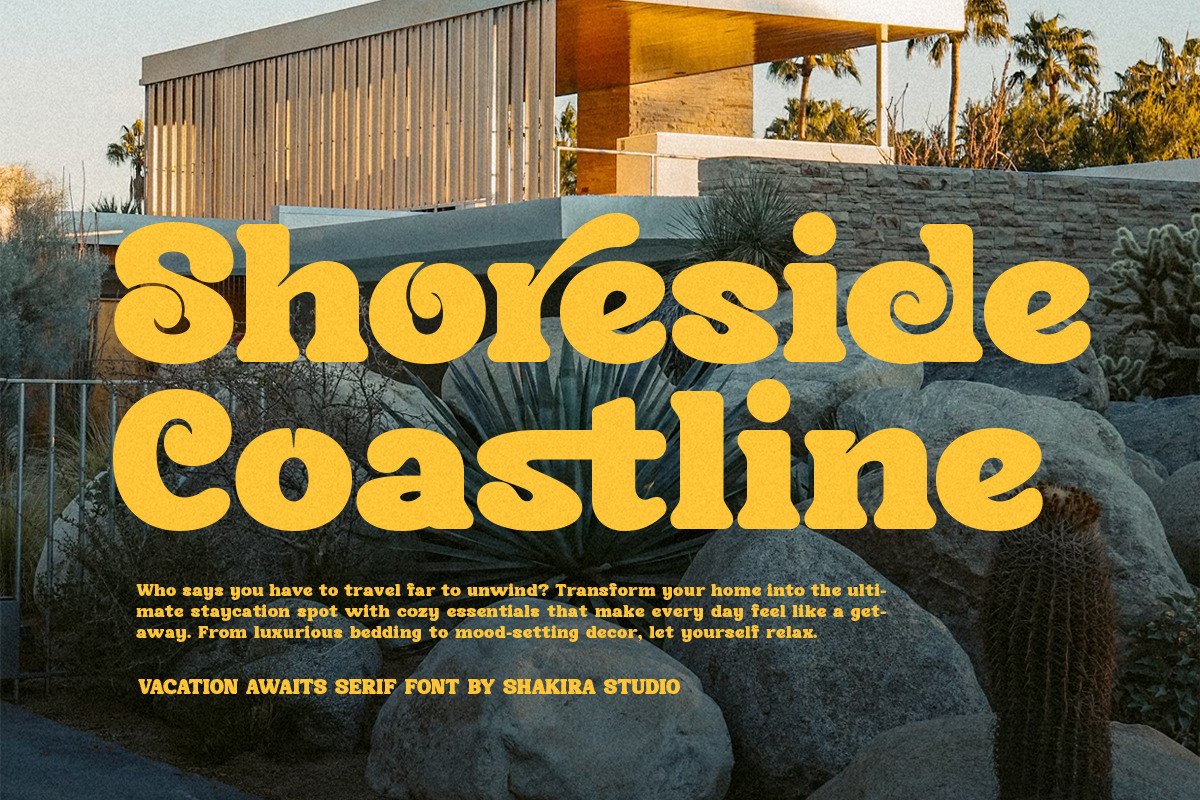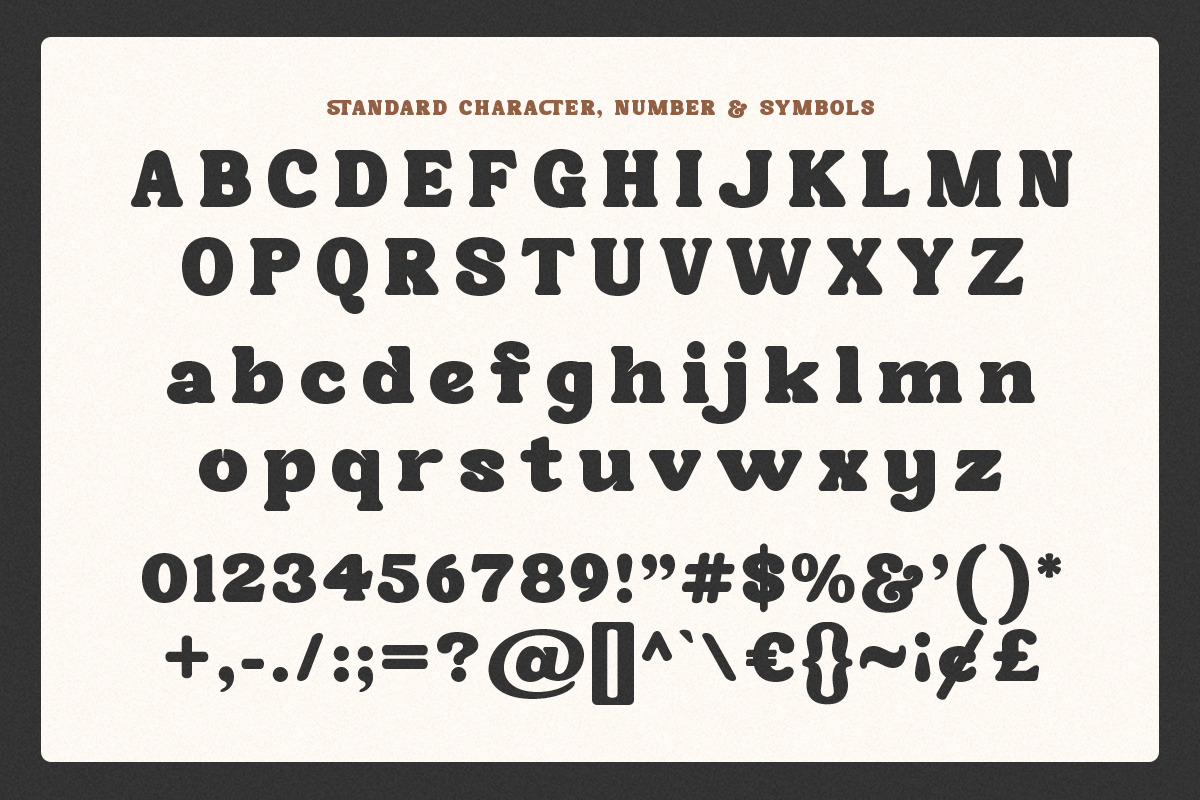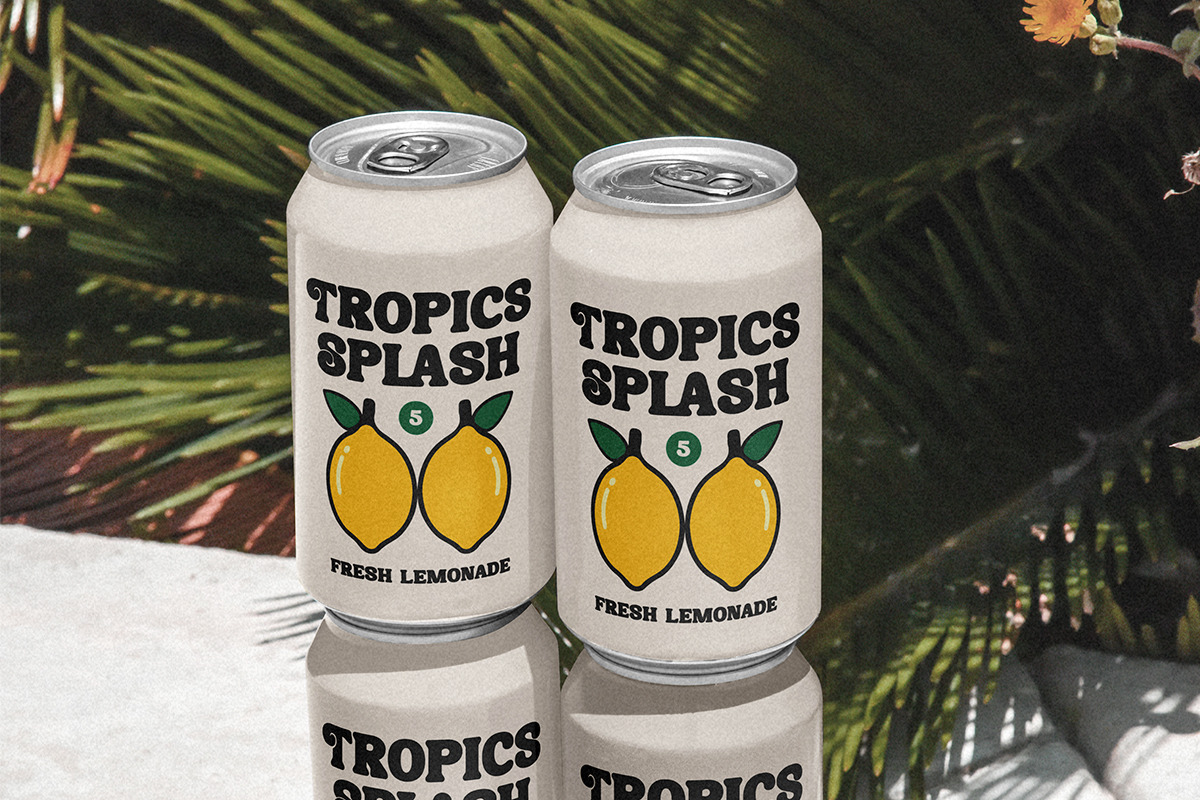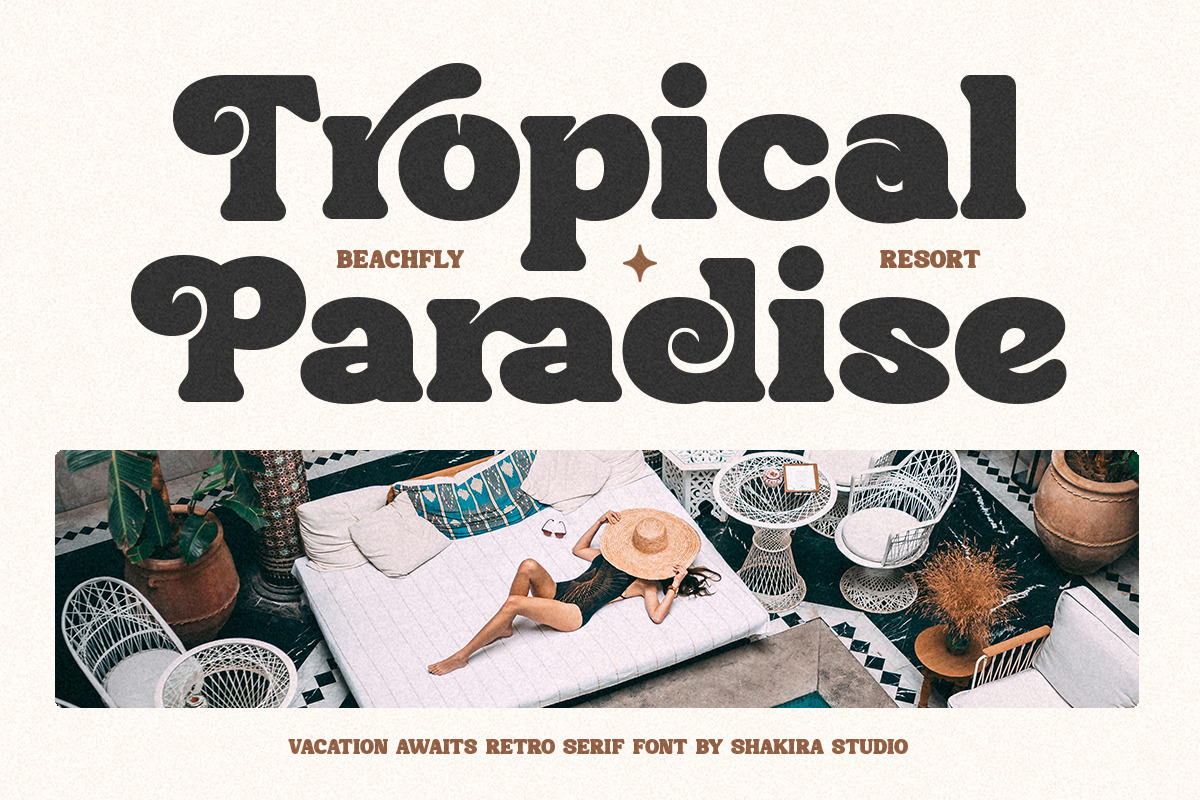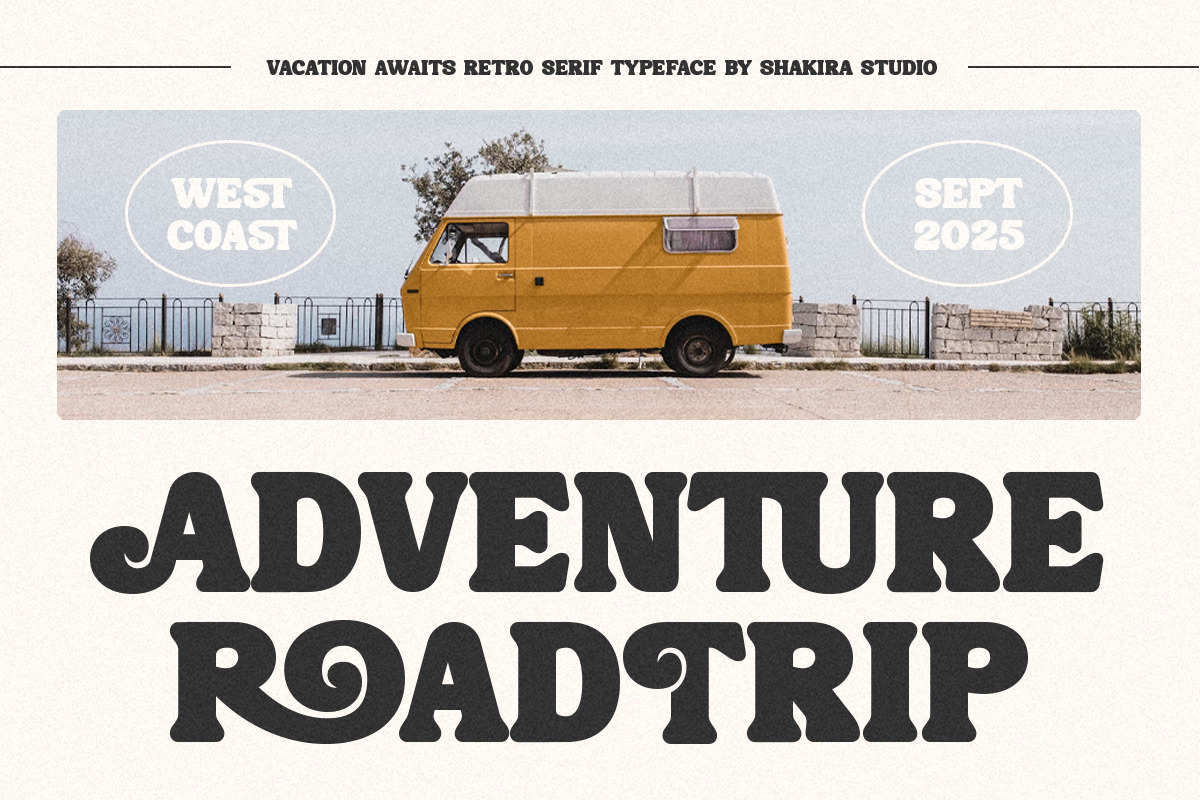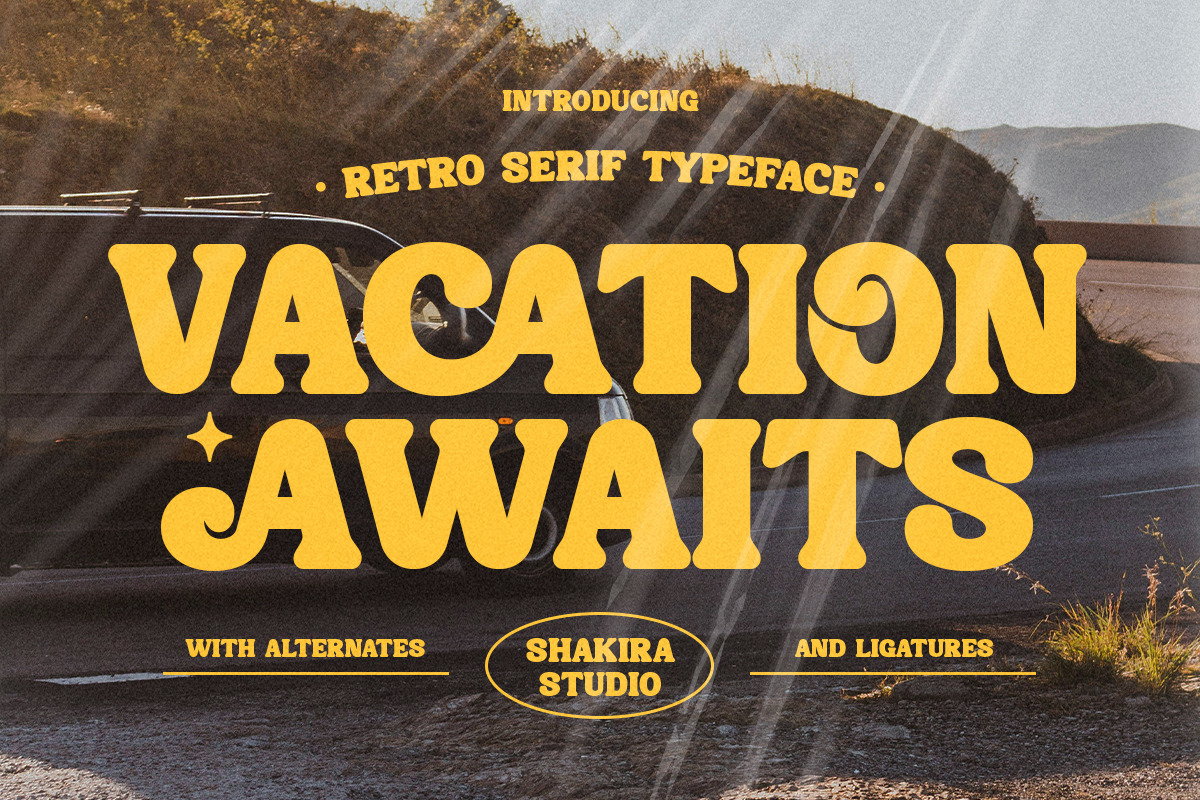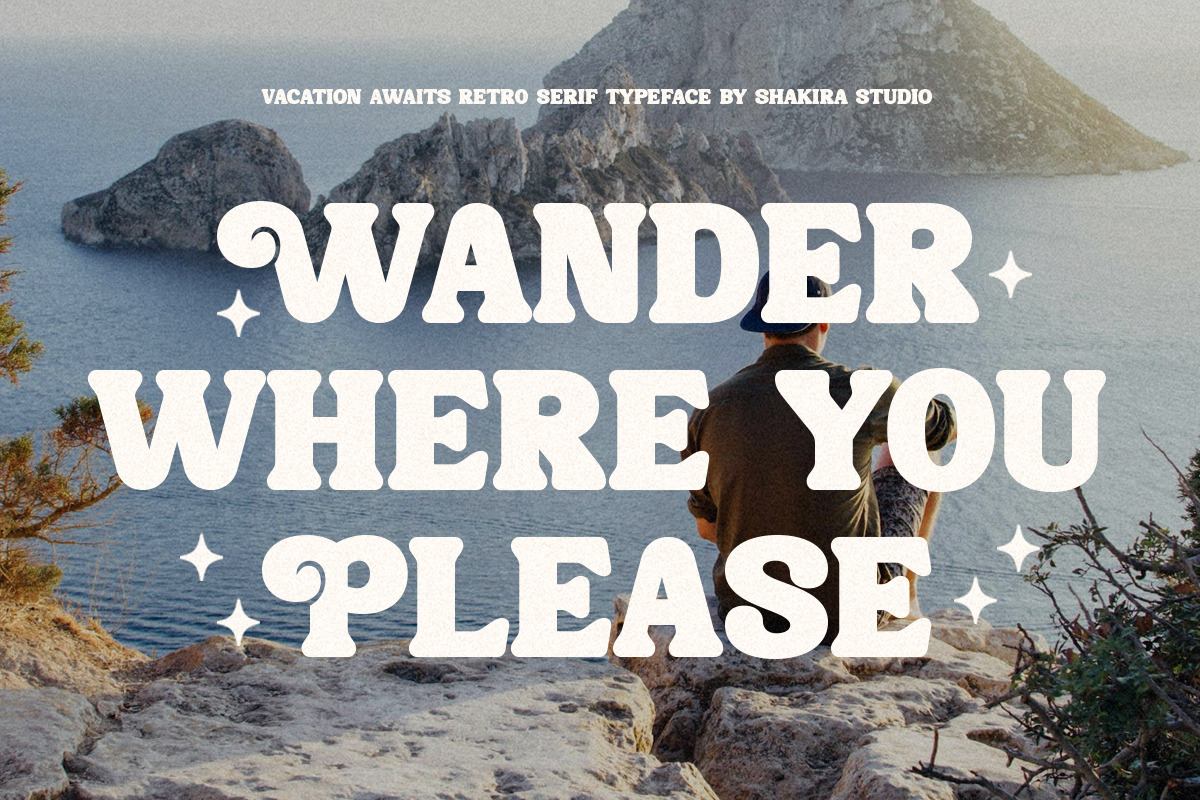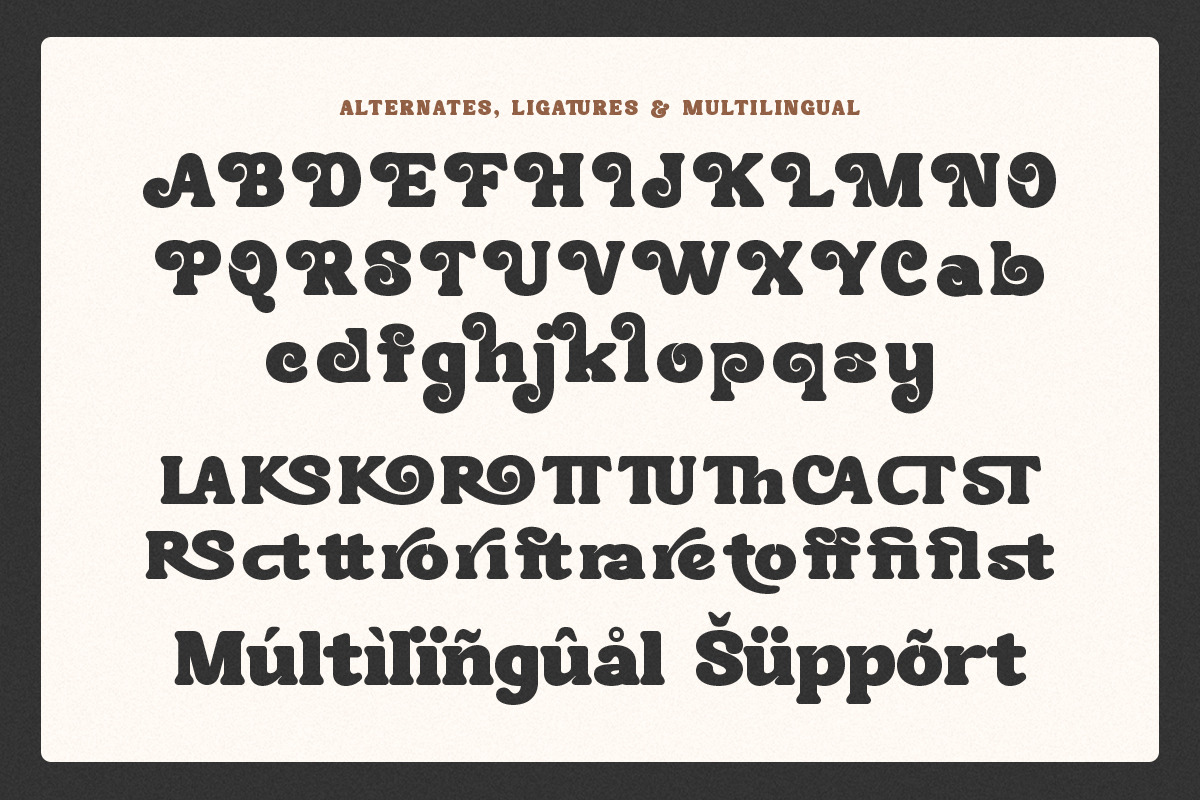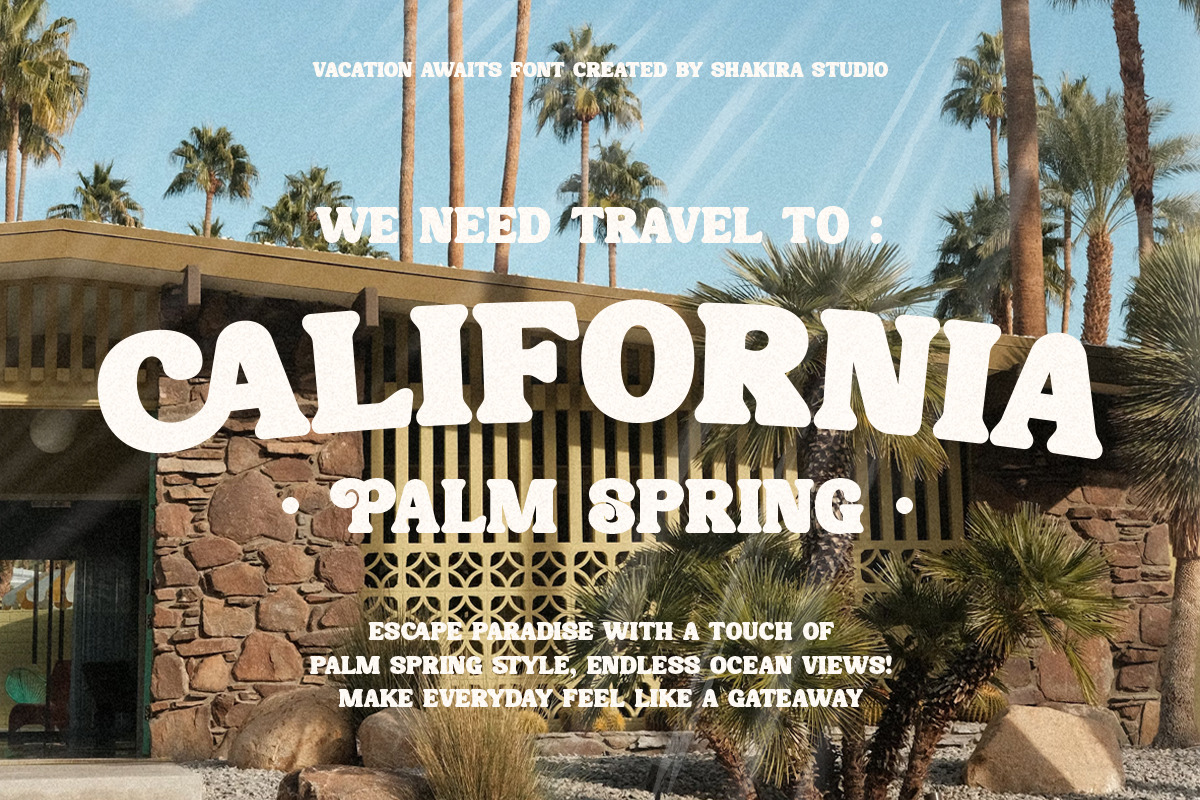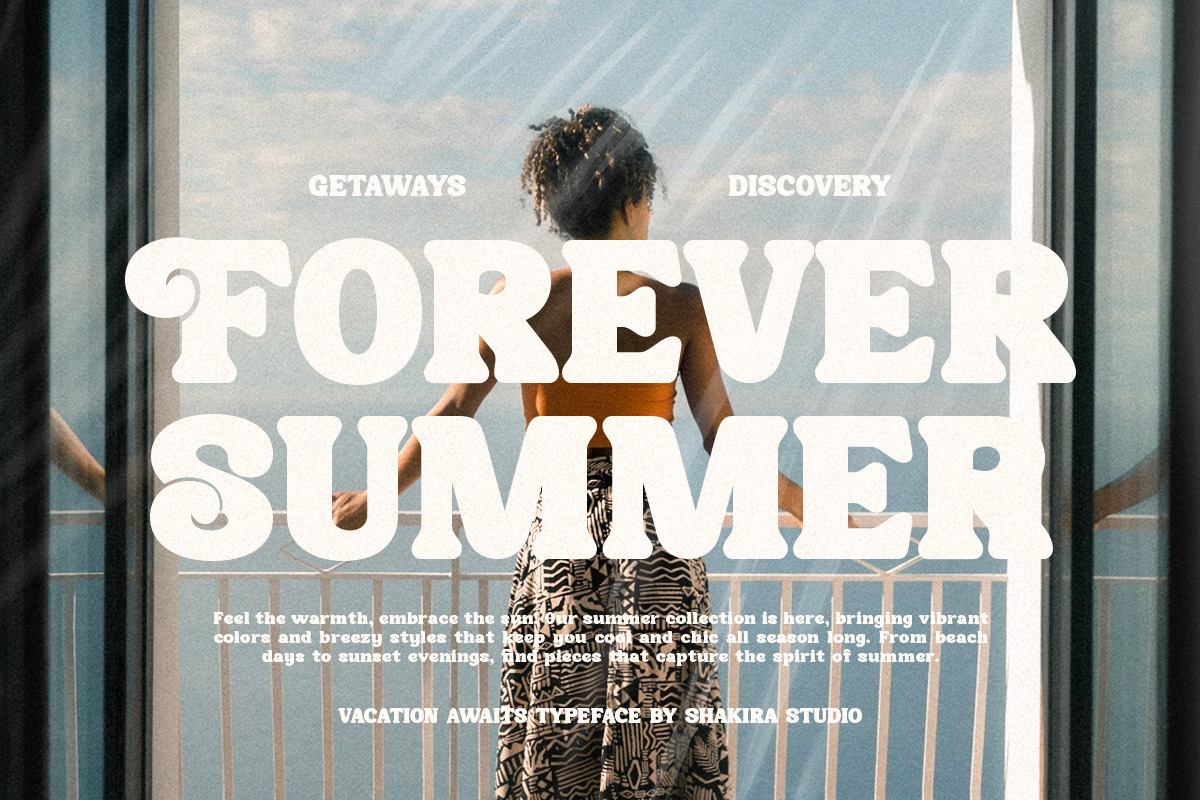
Vacation Awaits - Retro Serif Font
Vacation Awaits is a bold retro serif font available in both regular and italic styles. Its thick, nostalgic characters bring a touch of vintage charm to any project. With stylish alternates and ligatures, Vacation Awaits is perfect for adding a classic yet playful vibe to logos, posters, and branding. Make your designs stand out with this versatile and timeless typeface.
- Regular & Italic
- Opentype features ( ligature, alternate )